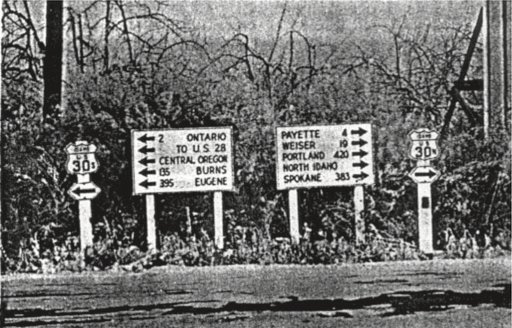
Early Highway Signs Created New Fonts
In this post, we are looking at one of the first hand painted highway guide signs in Oregon. Thinking about how roadside information was understood and practiced before the modern signs we see now can be hard to comprehend. It seems like our generation has always had the luxury of the modern day hi…